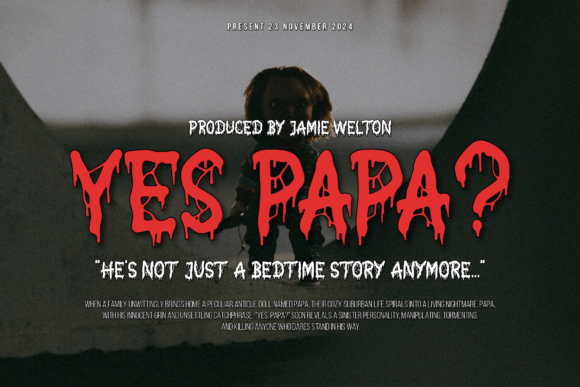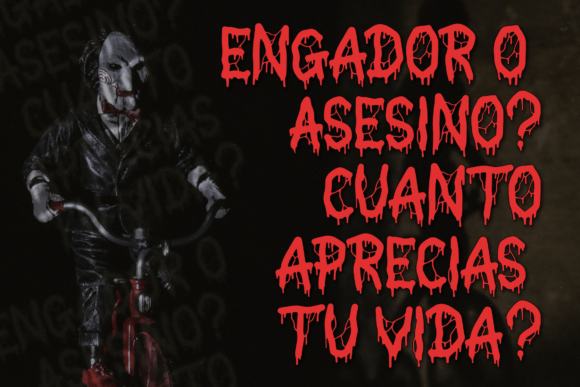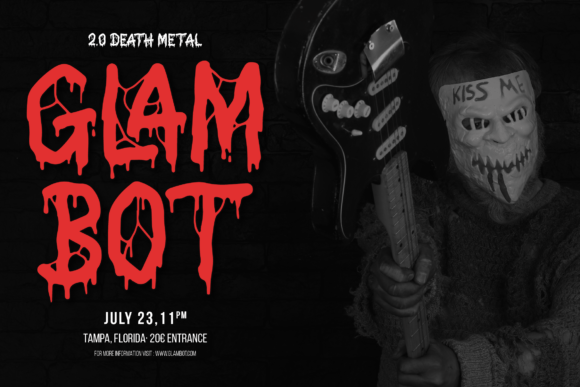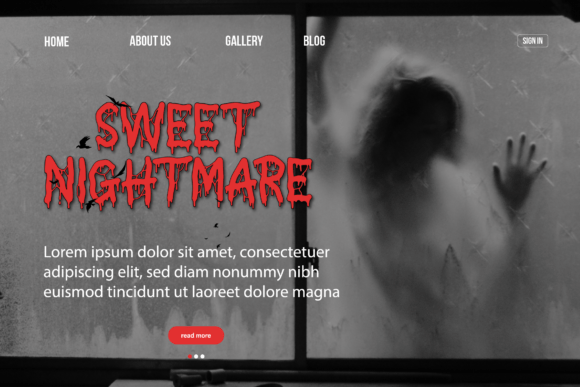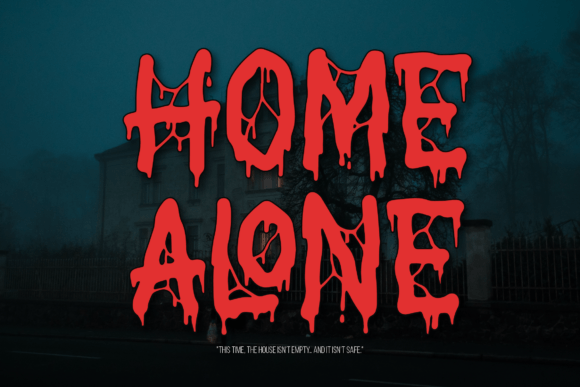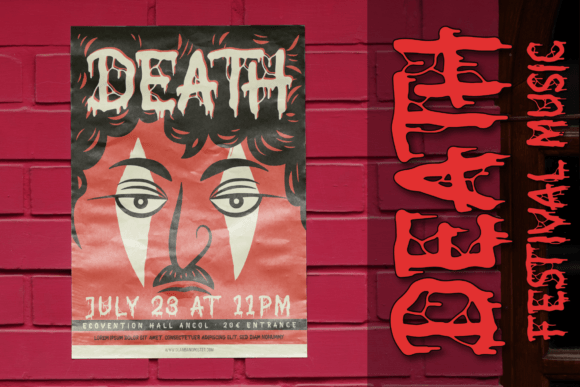
The Blood Drainer Font: A Spooky Masterpiece for Your Design Needs
As a designer, I’ve had my fair share of late nights scrolling through font libraries, searching for that perfect typeface to bring my project to life. One of my most memorable experiences was when I was tasked with creating a Halloween-themed invitation for a client’s haunted house event. I wanted to create an atmosphere that was both spooky and thrilling, but I was struggling to find a font that captured the essence of the holiday. That’s when I stumbled upon the Blood Drainer font, a creepy and eerie typeface that would become the perfect fit for my design.
First Impressions: A Spooky Masterpiece
The Blood Drainer font is a horror display font that features eerie lights, creepy sounds, and a chilling scene of a dark creature that feeds on blood. It’s perfect for creating a scary atmosphere at Halloween or haunted house events! The font’s unique design elements immediately caught my attention, and I knew I had to learn more.
• ✨ Unique and creepy design that’s perfect for horror-themed projects
• ✅ Easy to read, even in large blocks of text
• 🎃 Perfect for Halloween or haunted house events
• 🤔 Limited use outside of horror-themed projects (may not be suitable for more formal or professional designs)
• ⚠️ May not be the best choice for body text, as it’s designed primarily for display purposes
The Designer Inspiration Behind Blood Drainer
The Blood Drainer font was inspired by the dark and eerie atmosphere of haunted houses and horror movies. The designer wanted to create a font that would capture the essence of fear and thrill, perfect for Halloween or haunted house events. The result is a unique and creepy font that’s sure to make your designs stand out.
Font Name Blood Drainer Font
Author Gracetypestudio
Q: What type of projects is the Blood Drainer font best suited for?
A: The Blood Drainer font is perfect for horror-themed projects, such as Halloween or haunted house events, but may not be suitable for more formal or professional designs.
Q: Can I use the Blood Drainer font for body text?
A: While the Blood Drainer font can be used for body text, it’s designed primarily for display purposes and may not be the best choice for longer blocks of text.